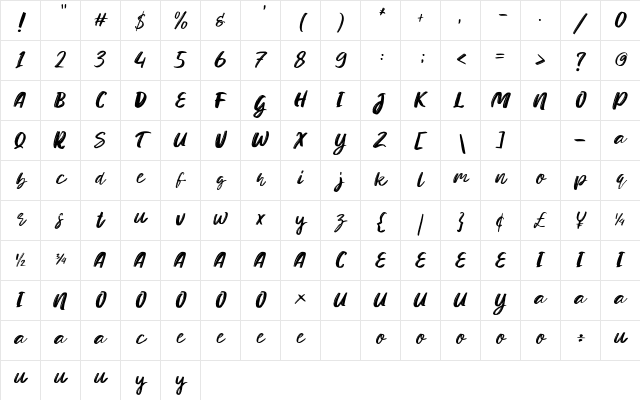
Toast and Honey Italic
Foundry: Degi Kurniawan
Designer: Degi Kurniawan
Design Context for Toast and Honey
Toast and Honey is a composed and adaptable typeface that performs quietly and consistently across a wide range of design contexts. The slanted form adds forward momentum and visual energy.
Pro Tip: Use Toast and Honey for emphasis, pull quotes, and subheadings where its slanted energy can add rhythm to the layout.